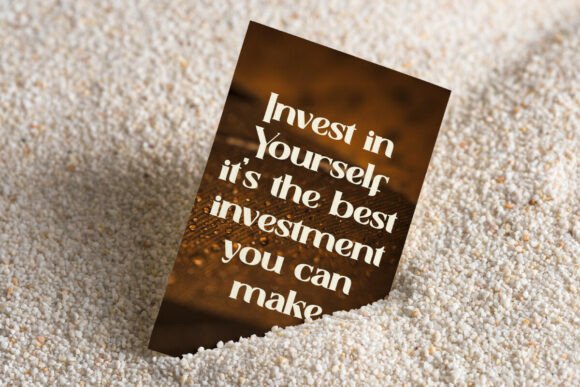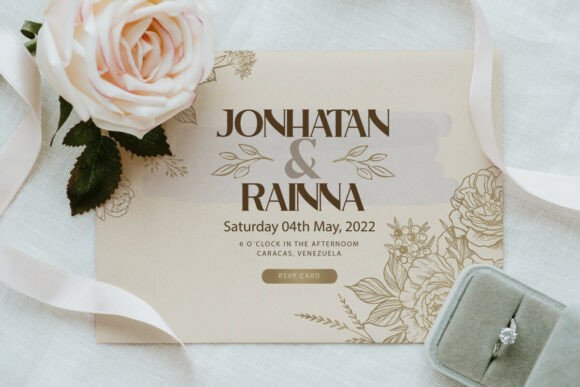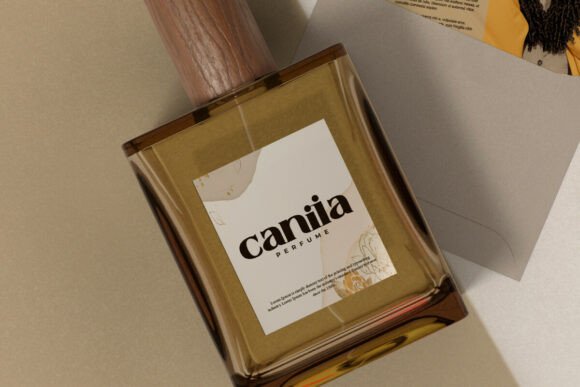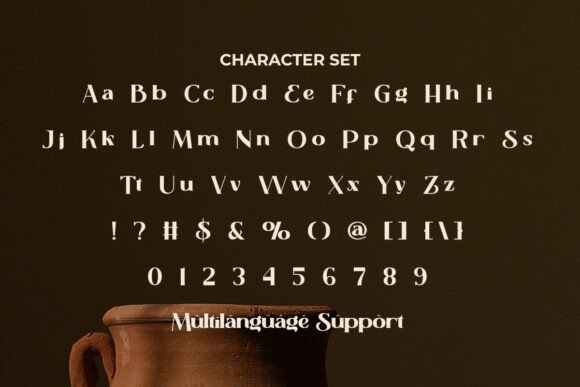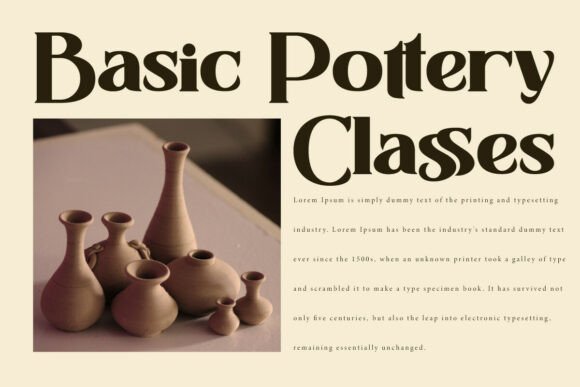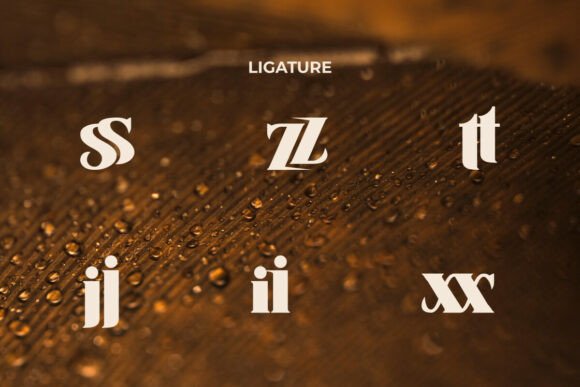
Introducing Classicly Font: The Timeless Typeface for Elegant Designs
Are you searching for a font that embodies the essence of vintage charm while exuding a modern edge? Look no further than Classicly Font, a classic serif display font that is sure to elevate your creative projects to new heights. Characterized by its bold letter composition and equipped with ligatures that add an artistic touch, Classicly Font is the perfect choice for designers and crafters seeking a sophisticated and elegant typeface.
Inspired by Retro Typefaces with Meticulous Craftsmanship
Classicly Font draws inspiration from retro typefaces, meticulously crafted to bring a sense of nostalgia and timelessness to your designs. With its refined details and bold letterforms, this display font is ideal for a wide range of applications, from branding and editorial layouts to signage, invitations, packaging, logos, and promotional materials.
The Perfect Choice for Vintage Aesthetic
Whether you’re a graphic designer, blogger, or crafty entrepreneur, Classicly Font is the perfect choice for those who want to add a touch of vintage charm to their designs. Its versatile style makes it suitable for various projects, including blogs, brand logos, card designs, headers, invitations, labels, stationery, titles, websites, and much more.
Key Features of Classicly Font
- Bold Letter Composition: Classicly Font features bold letterforms that make a statement, perfect for headlines, titles, and emphasis.
- Ligatures: The font comes equipped with ligatures that add an artistic touch, making your designs stand out.
- Serif Display Font: Classicly Font is a serif display font, ideal for creating elegant and sophisticated designs.
- Vintage Aesthetic: With its retro-inspired design, Classicly Font brings a touch of nostalgia and timelessness to your projects.
- Versatile Style: The font’s versatile style makes it suitable for a wide range of applications, from branding to editorial layouts.
Why Choose Classicly Font?
So, why choose Classicly Font over other typefaces? Here are just a few reasons:
- Elegance and Sophistication: Classicly Font exudes elegance and sophistication, making it perfect for high-end designs.
- Professional Appeal: The font’s refined details and bold letterforms give your designs a professional edge.
- Timeless Design: Classicly Font’s vintage-inspired design ensures that your projects will stand the test of time.
- Easy to Read: Despite its bold composition, Classicly Font is easy to read, making it suitable for body text and headlines.
How to Use Classicly Font
Classicly Font is incredibly versatile and can be used in a variety of ways. Here are a few ideas to get you started:
- Branding: Use Classicly Font as your brand’s primary typeface to add a touch of elegance and sophistication.
- Editorial Layouts: The font is perfect for editorial layouts, including magazines, newspapers, and blogs.
- Signage: Classicly Font is ideal for signage, including billboards, posters, and flyers.
- Invitations: Use the font to create beautiful and elegant invitations for special occasions.
- Packaging: Classicly Font can add a touch of sophistication to your packaging designs.
In conclusion, Classicly Font is a timeless typeface that is sure to elevate your creative projects to new heights. With its bold letter composition, ligatures, and vintage aesthetic, this display font is perfect for designers and crafters seeking a sophisticated and elegant typeface. Whether you’re looking to add a touch of nostalgia to your designs or simply want a font that exudes elegance and sophistication, Classicly Font is the perfect choice.